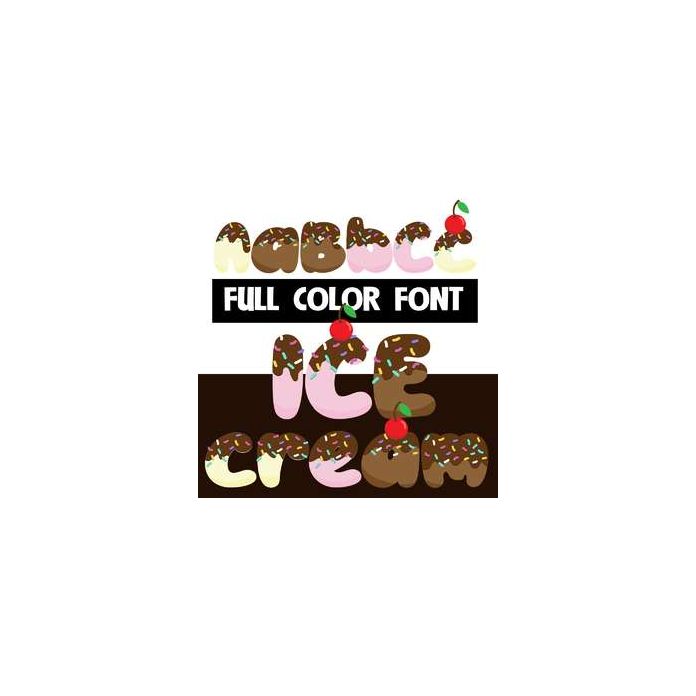
This full-color font looks like vanilla, chocolate, and strawberry letters covered in chocolate sauce and sprinkles. This font works best for titles, displays, posters and more. Please note color fonts will show as black in non compatible programs. This font type is compatible with Silhouette Studio.